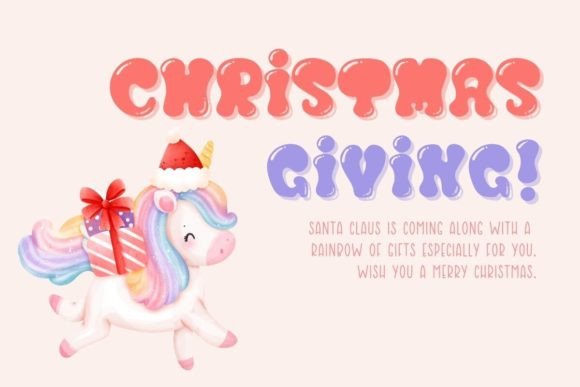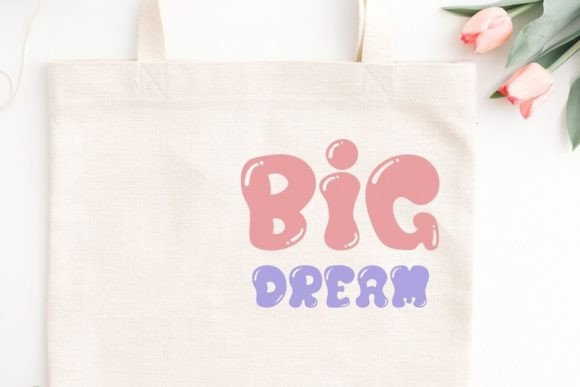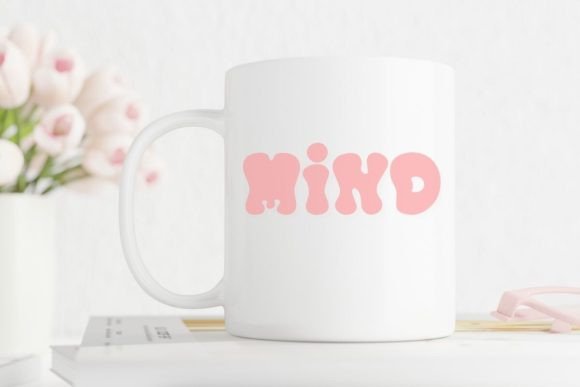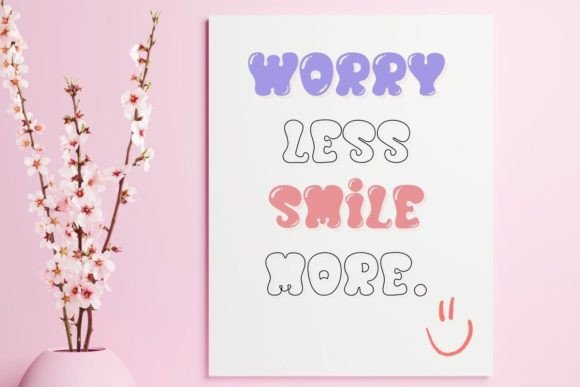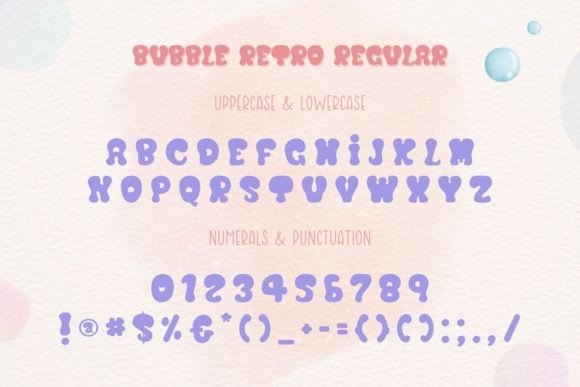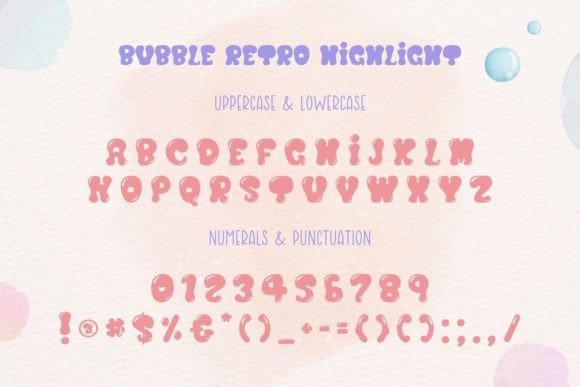
Discover the Joy of Bubble Retro Font
You know that feeling when you’re brainstorming ideas for a new design project and you just can’t seem to get the perfect font to match your vision? The frustration of scrolling through countless options, only to end up with something that just doesn’t feel quite right. But what if you could instantly transport yourself back to a time of carefree creativity, when the world was a more playful and whimsical place?
Enter the Bubble Retro Font, a delightful display font that’s sure to bring a smile to your face. With three distinct styles to choose from – Regular, Highlight, and Outline – this font is the perfect addition to any design project. Whether you’re creating a social media post, a mug design, or a card, the Bubble Retro Font is sure to add a touch of nostalgia and fun to your work.
As a designer, you know how valuable it is to have a reliable and versatile font in your toolkit. The Bubble Retro Font is just that, offering endless possibilities for creative expression and design experimentation. So why settle for a boring, generic font when you can have a font that’s as fun and playful as you are?
Bubble Retro Font Key Features
- Unique Characteristics: Distinctive bubble-like shapes and rounded edges, reminiscent of classic retro fonts
- Font Style: Display font, suitable for headings and titles
Bubble Retro Font Review
Overall, I was excited to dive into the Bubble Retro Font, but my experience was a mix of highs and lows.
- The font’s nostalgic vibe is undeniably charming, transporting users back to the 80s and 90s.
- The unique bubble-like shapes and rounded edges add a playful touch, making it perfect for creative and whimsical projects.
- The font’s flexibility in terms of size and color ensures it can be used in a variety of contexts, from headings to body text.
- The font’s readability can suffer at smaller sizes, making it less suitable for large blocks of text or body content.
- The bold and italic styles may not be as crisp as other fonts, which can affect overall legibility.
- The font’s uniqueness can be a double-edged sword, as it may not be suitable for more formal or professional projects.
The Bubble Retro Font is a fun and quirky addition to any design project. While it may not be the most versatile font, its unique charm makes it perfect for creative and playful applications. If you’re looking for a font to add some personality to your design, the Bubble Retro Font is definitely worth considering.
Tips for Getting the Most Out of Bubble Retro Font
Here are some tips to help you get the most out of the Bubble Retro Font:
- Use the font in conjunction with bold or italic text to add emphasis.
- Experiment with different font sizes and colors to create a unique visual effect.
- Use the font to create a nostalgic or retro vibe in your designs.